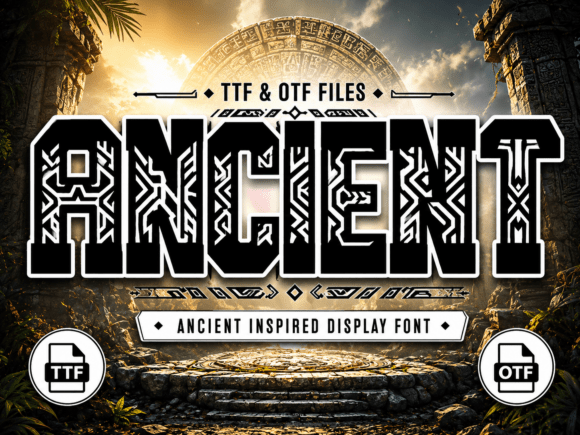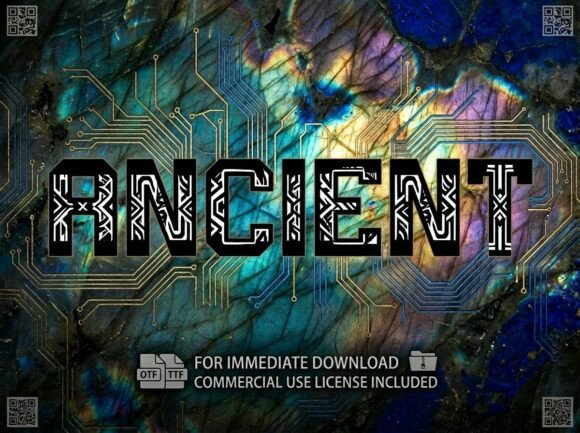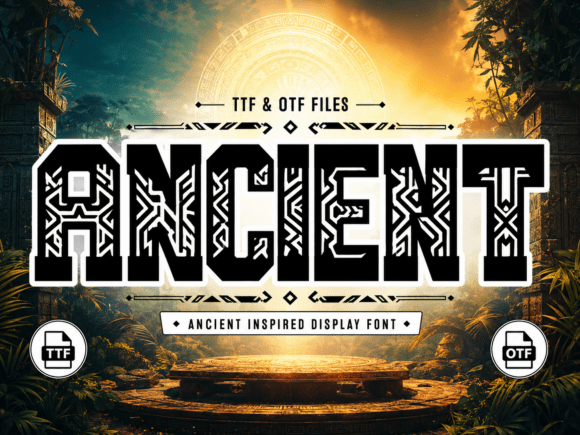
Unleash the Power of Ancient Typography
Imagine you’re standing in front of a centuries-old temple, the intricate carvings on the walls whispering secrets of the past. You feel a shiver run down your spine as you ponder the mysteries of ancient civilizations. This moment of creative awe is exactly what the Ancient Font aims to evoke.
Designed to transport you to a realm of timeless wisdom and mystique, Ancient Font is a bold, blocky display font that combines the essence of historic runes, architectural relics, and sacred geometric carvings. This striking typeface is not just a tool for designers, but a key to unlocking the secrets of the past and infusing your creative work with an air of mythological grandeur.
Whether you’re crafting fantasy world-building, gaming logos, or epic book covers, Ancient Font is a valuable addition to your design arsenal, offering a unique and captivating visual experience that will leave a lasting impression on your audience.
Ancient Font Key Features
- Unique Characteristics: Ancient Font features a distinctive, elegant design that evokes the style of ancient manuscripts, making it ideal for historical or literary projects.
- Kerning and Ligatures: Ancient Font includes advanced kerning and ligature pairs, ensuring that text sets are displayed with precise, elegant spacing.
- Customization Options: Ancient Font includes a range of customization options, including stylistic sets and swash alternates, allowing designers to add unique flair to their projects.
Ancient Font Review
I’ve had the chance to work with Ancient Font, and I must say it’s a unique addition to any design project. Here are my thoughts:
- Its nostalgic feel and vintage vibes make it perfect for retro-themed projects.
- The font’s irregularities add a touch of character and make it stand out from more traditional fonts.
- It’s available in a range of weights and styles, making it versatile for different design applications.
- Some characters may not be legible, especially at smaller font sizes.
- The font may not be suitable for body text due to its unique style, which can be distracting for readers.
- It’s not as polished as some other fonts, which may be a concern for designers who prioritize a more refined look.
Ancient Font is a great choice for designers who want to add a touch of history and character to their projects. While it may have its limitations, it’s perfect for titles, headings, and other design elements where its unique style can shine. Just be mindful of its potential drawbacks, and use it sparingly to avoid overwhelming your audience.
Getting the Most Out of Ancient Font
Use Ancient Font to create a vintage or retro look in your designs.
Pair Ancient Font with other vintage-inspired elements, such as distressed textures and classic illustrations.
Experiment with different font sizes and styles to create a unique and eye-catching design.
Brand logos and packaging
Advertising and marketing materials
Alternatives to Ancient Font
Playfair Display is a luxurious and elegant serif font, perfect for high-end designs, such as luxury brands, weddings, and special occasions. It features intricate details and connections between letters, making it ideal for headlines and titles.
Compared to Ancient Font, Playfair Display is more ornate and luxurious, making it a better choice for premium designs. While Ancient Font has a more subtle, vintage feel, Playfair Display is more attention-grabbing and sophisticated.
Q: What is the recommended font size for Ancient Font?
The recommended font size for Ancient Font is between 12pt and 24pt. However, the ideal font size will depend on the specific design requirements and the intended use of the font. We recommend testing different font sizes to find the optimal setting for your project.